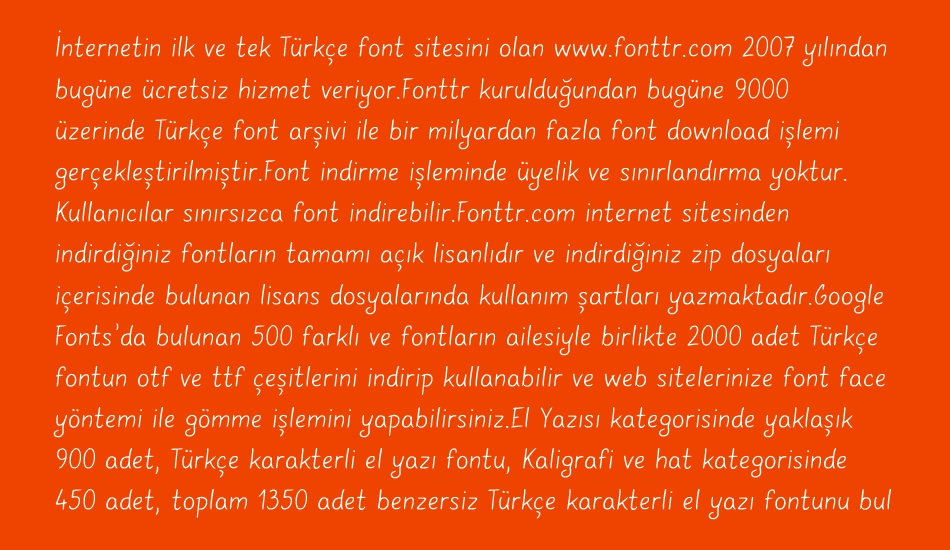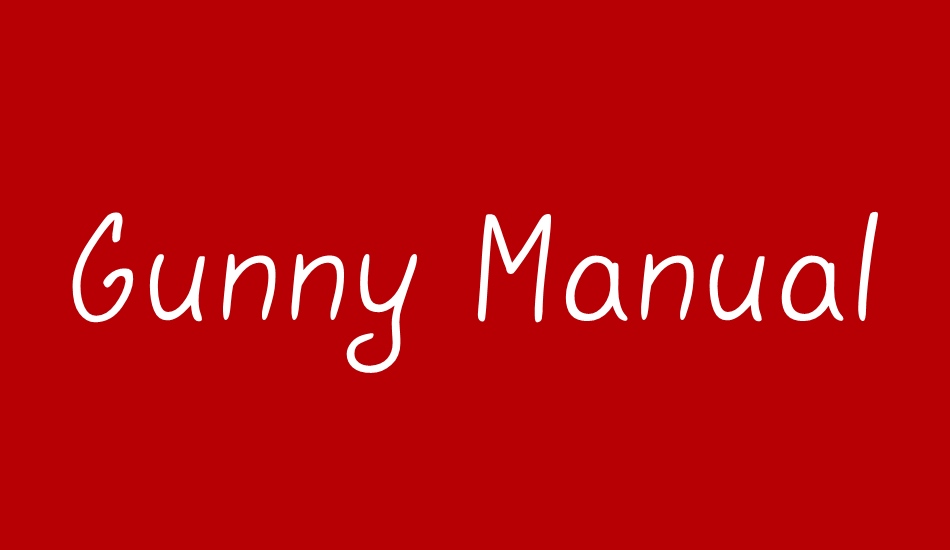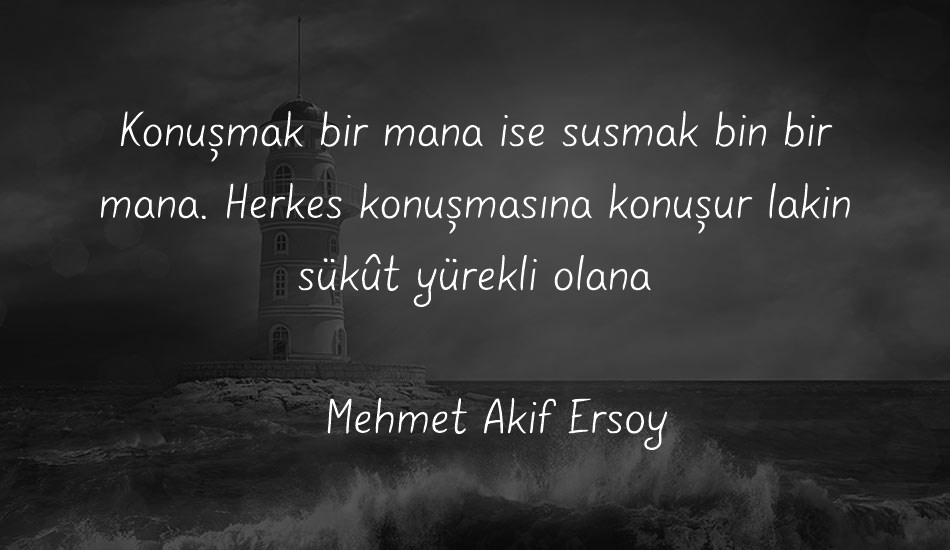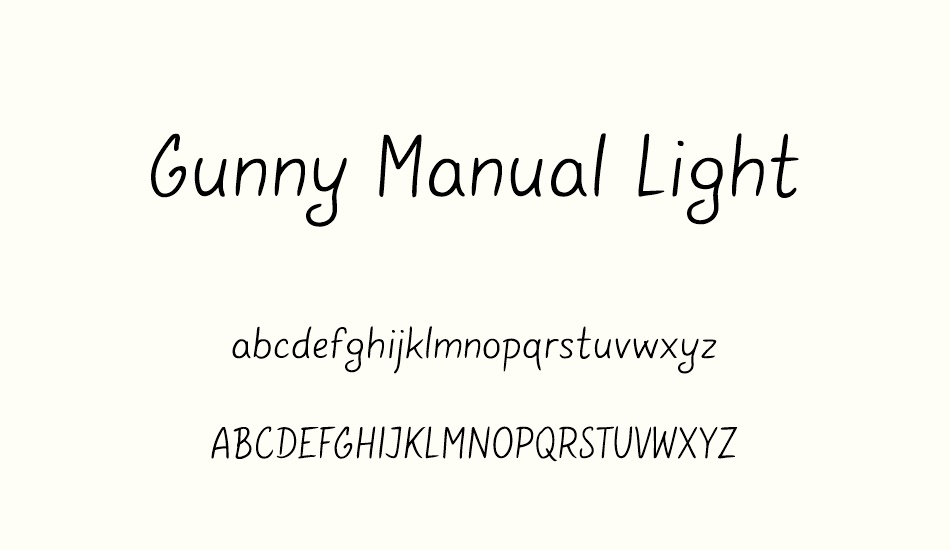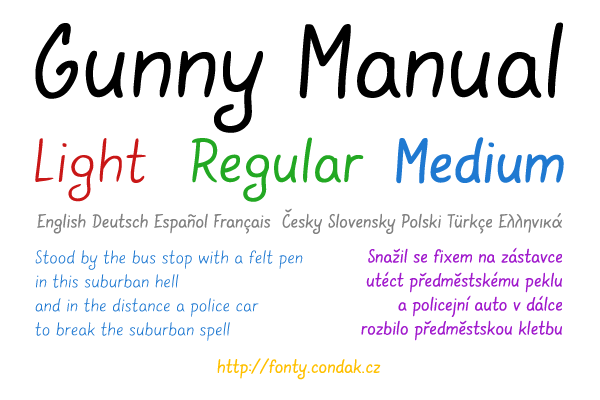
Gunny Manual font
Gunny Manual
Regular / Medium / Light
by V?t ?ond?k
2010-2015
[ English description ]
Font sketched with a thick felt pen.
[ ?esk? popis ]
Font na?rtnut? tlust?m fixem.
History
0.36 2015-05-05
* margins: XYZ
* .
+ cyrillic: ABVGIMNOPRCTU
0.35 2015-05-02
* Medium: merge
* Medium - various minor tweaks
* Regular - various minor tweaks
+ lessequal greaterequal
0.34 2015-04-30
* Light: fixed margins
* Light: fixed A, Lambda
* elipsis
0.33 2015-04-29
* Light = thin 30
* Light: merge
* Light: notequal Lira
0.32 2015-04-26
* EFS gry (R) AE
+ eth psi delta Psi
* rho Sigma Epsilon theta
* kerning: T+... Tcaron+...
* fixed margins: y+... j W+..
0.31 2015-04-27
* []* EF ouy
* section guillemots second minute
+ zeta chi phi Phi
* pi epsilon Xi Epsilon Gamma beta
+ kerning: Gamma+...
0.30 2015-04-24
* Q m
* eta theta Omega omega pi Gamma mu
* margins: af
+ product summa chi beta epsilon lambda
0.29 2015-04-23
* p !%?() Euro
+ Thorn thorn alpha Pi pi Omega omega
+ Hh+caron middot perth integral
+ kerning: +?t
* tweaked margins
0.28 2015-04-22
* QVW p ?%${}
+ pound mu tau franc lira
+ KkGg+caron Zz-bar
0.27 2015-04-21
* 80 ;<>
+ Sigma
0.26 2015-04-17
* @ BDEFJKLMNOSZ gfkoz lslash germandbls dashes
+ (C)
* margins: "' quotes
* descender +50
0.25 2015-04-16
* bfhkz U
+ 0-9superior fractions ordmas ordfem
+ kappa germandbls AE
0.24 2015-04-15
* "#&+*, nosuw
+ quotes... +combiningcommabelow
+ AaIiOoUu+caron
+ eta sigma1 sigma2
0.23 2015-04-14
* 679 uv multiply
+ Delta gamma upsilon +iotadieresis
+ kerning: ?k
0.22 2015-04-13
* 56
0.21 2015-04-10
* 689 B er &
* hand-tuned margins
+ Lambda
0.20 2015-04-08
* 2 CHKNOTXZ ctx /
+ +breve dlt+commaright Ll+slash HTt-bar
+ bullet bulletempty currency cent yen
0.19 2015-04-07
* S abdjlq ^~ +cedilla
+ Greek duplicates (ABEZ...)
0.18 2015-04-03
* EFHJLPYZ
0.17 2015-04-01
* ! 01234 adio +ogonek +macron
0.16 2014-07-15
* 5 GIKLNRU agpy
+ OE oe
0.15 2014-07-14
* ABCDEFHIJSU dfirt
0.14 2014-07-11
* 2 EHJK
0.13 2014-05-12
* D
0.12 2014-05-07
* 12 P lostuz
0.11 2014-05-01
* AC
0.10 2014-04-30
* &- 49 :; OR tu hungarumlaut
0.09 2014-04-29
* 08 ? BOPTV h \|
0.08 2014-04-27
* acute breve caron +combinations
0.06 2014-04-26
*
0.04 2014-04-25
* reimported with less vertices
0.03 2010-08-08
+ A..N
0.02 2010-08-06
+ all small letters
0.00 2010-08-04
+ imported most small letters
xx 2010-08-02
* paper sketch